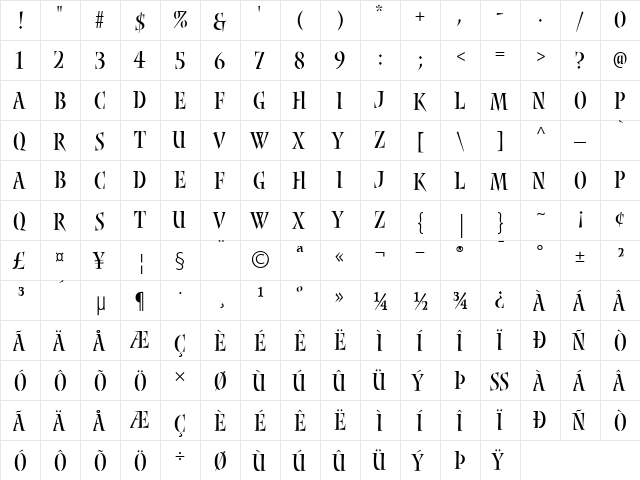
Nyx Roman
Design Context for Nyx Typeface
Nyx offers clean, dependable letterforms without strong stylistic allegiance, making it a practical choice for designers who need flexibility.
Pro Tip: Pair Nyx with a font of contrasting weight or personality to build a more expressive typographic hierarchy.